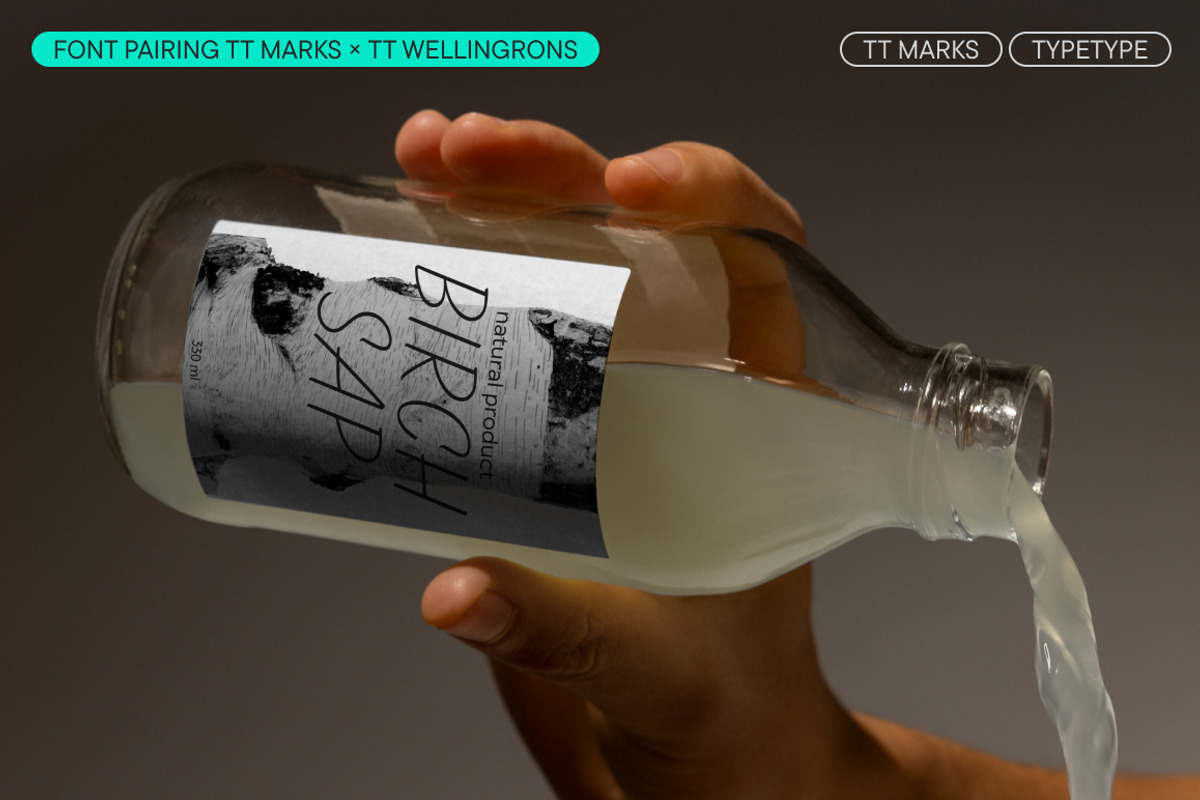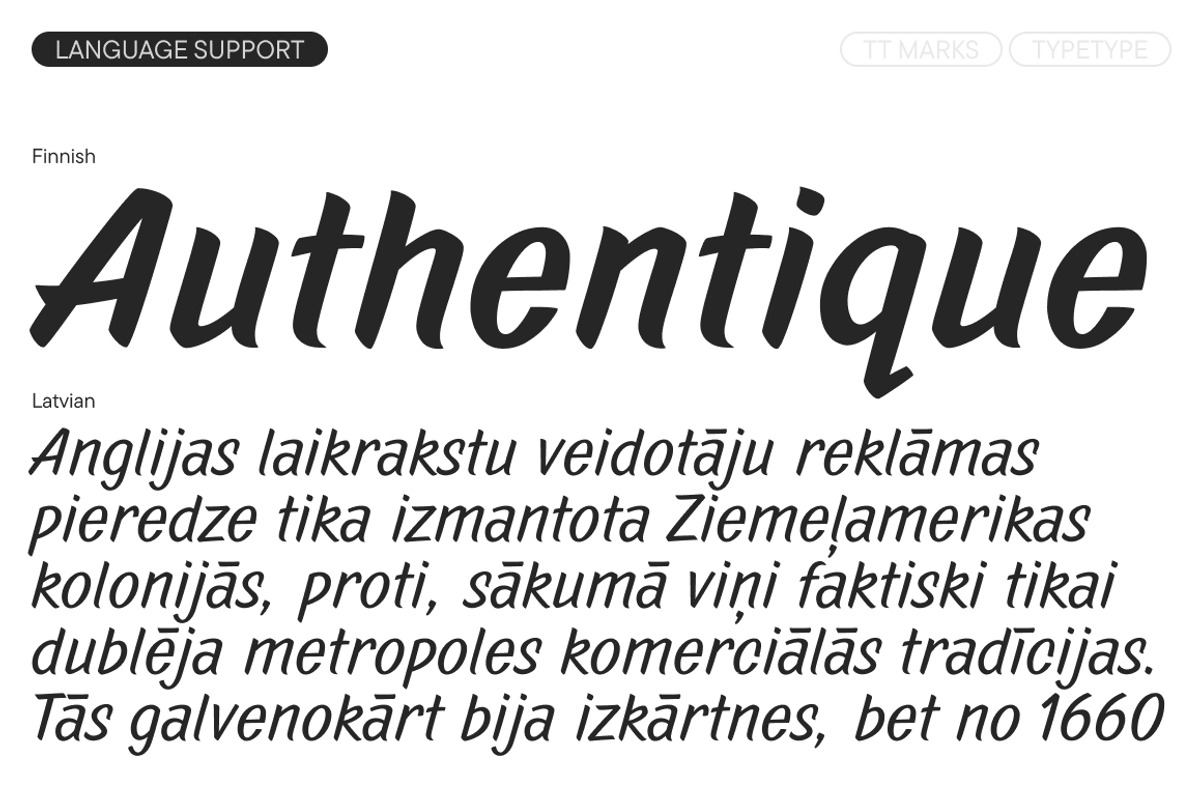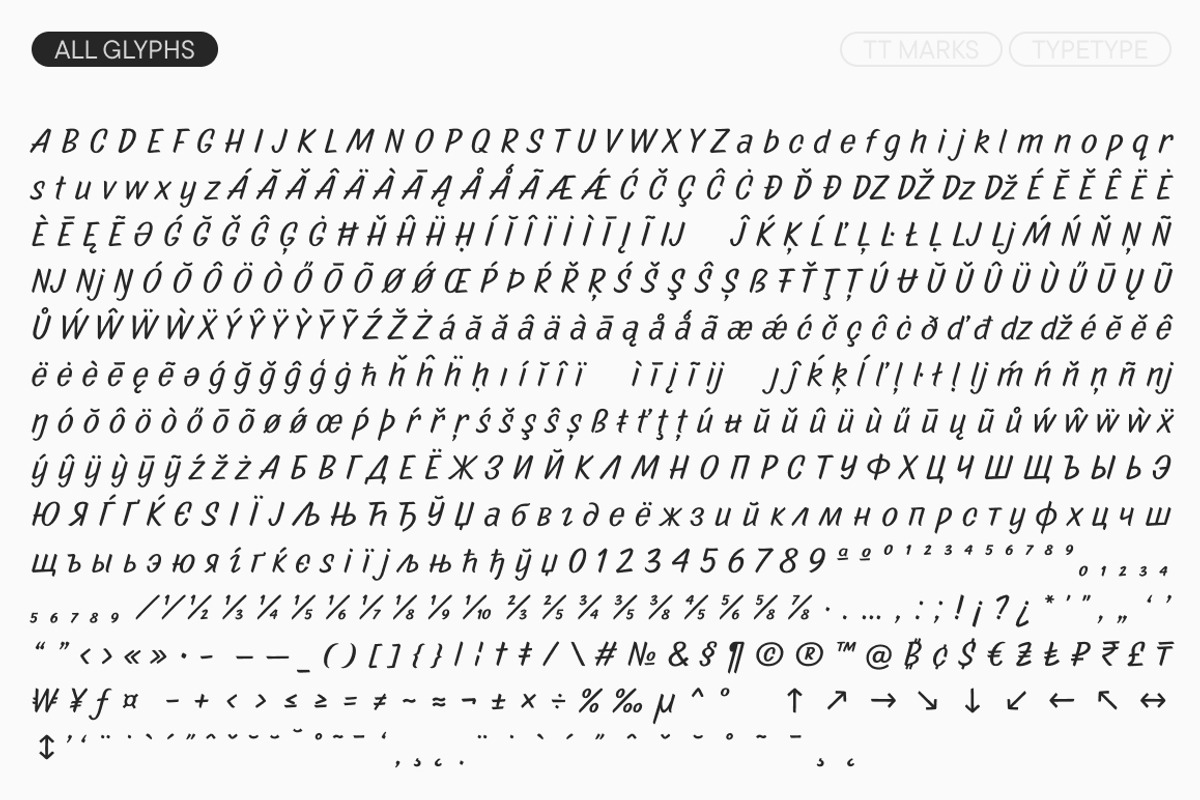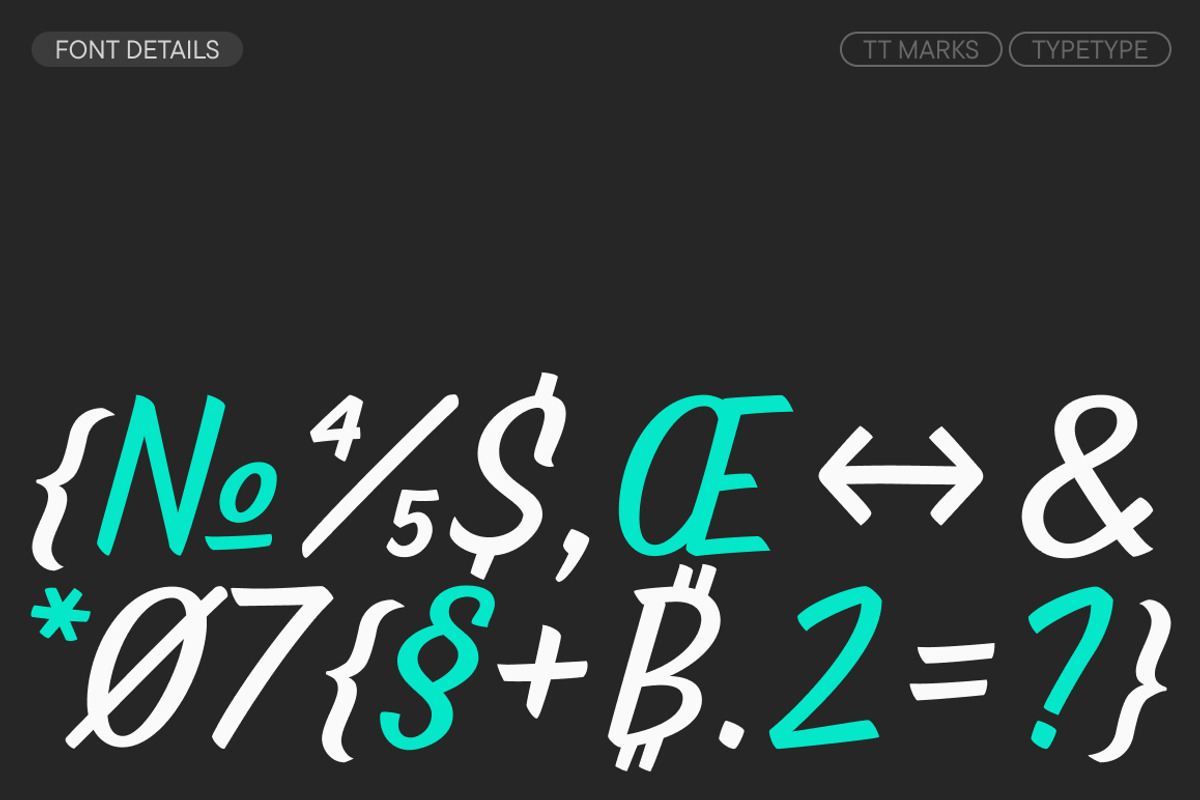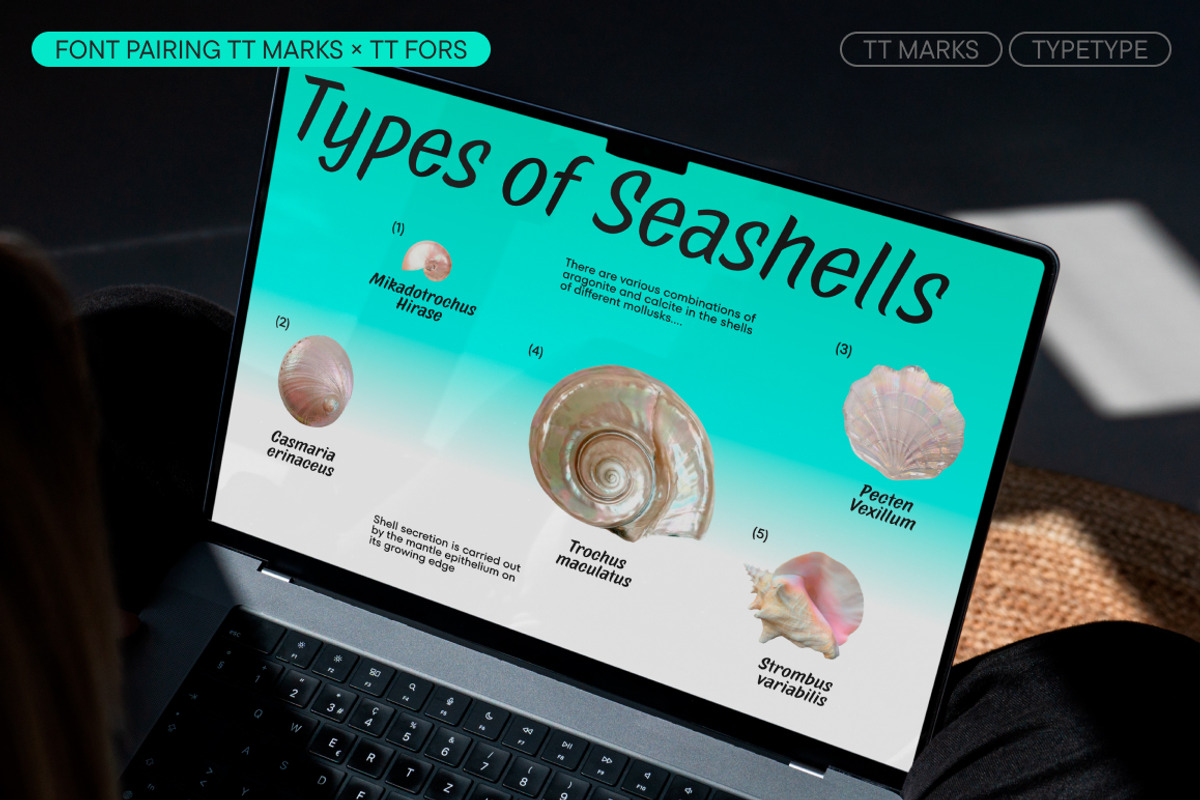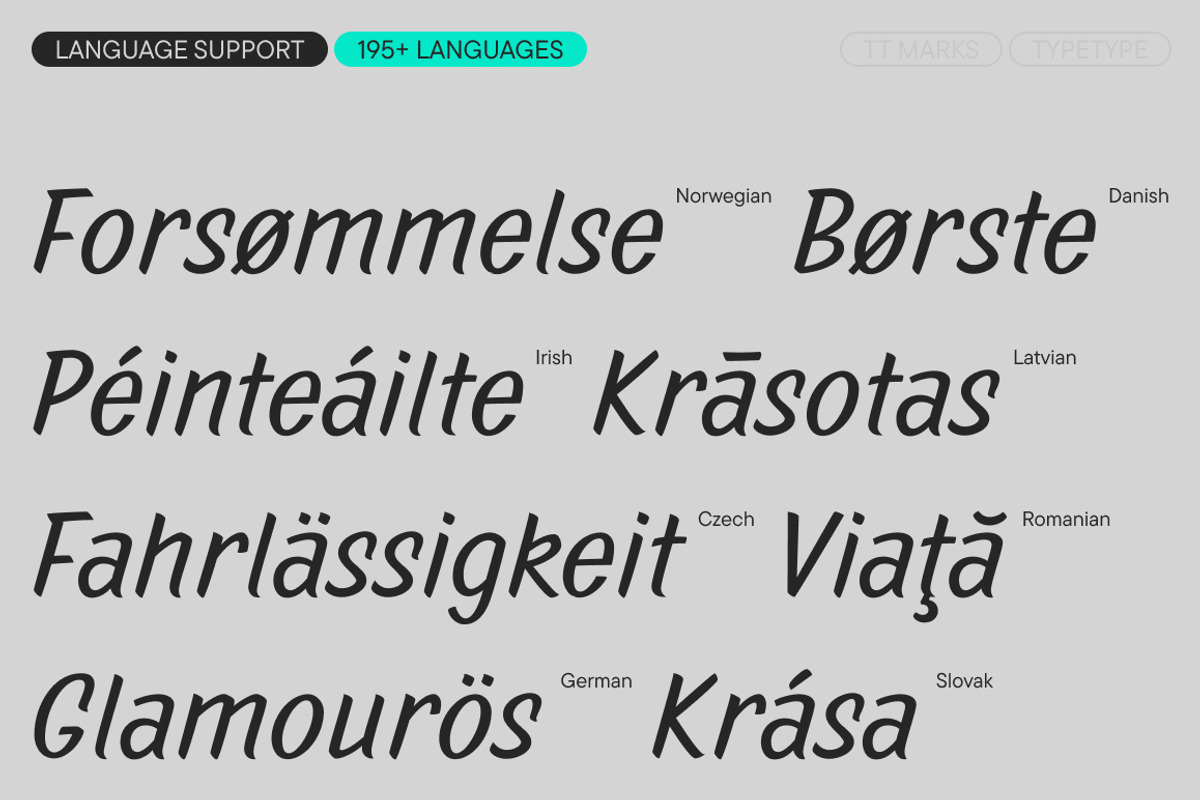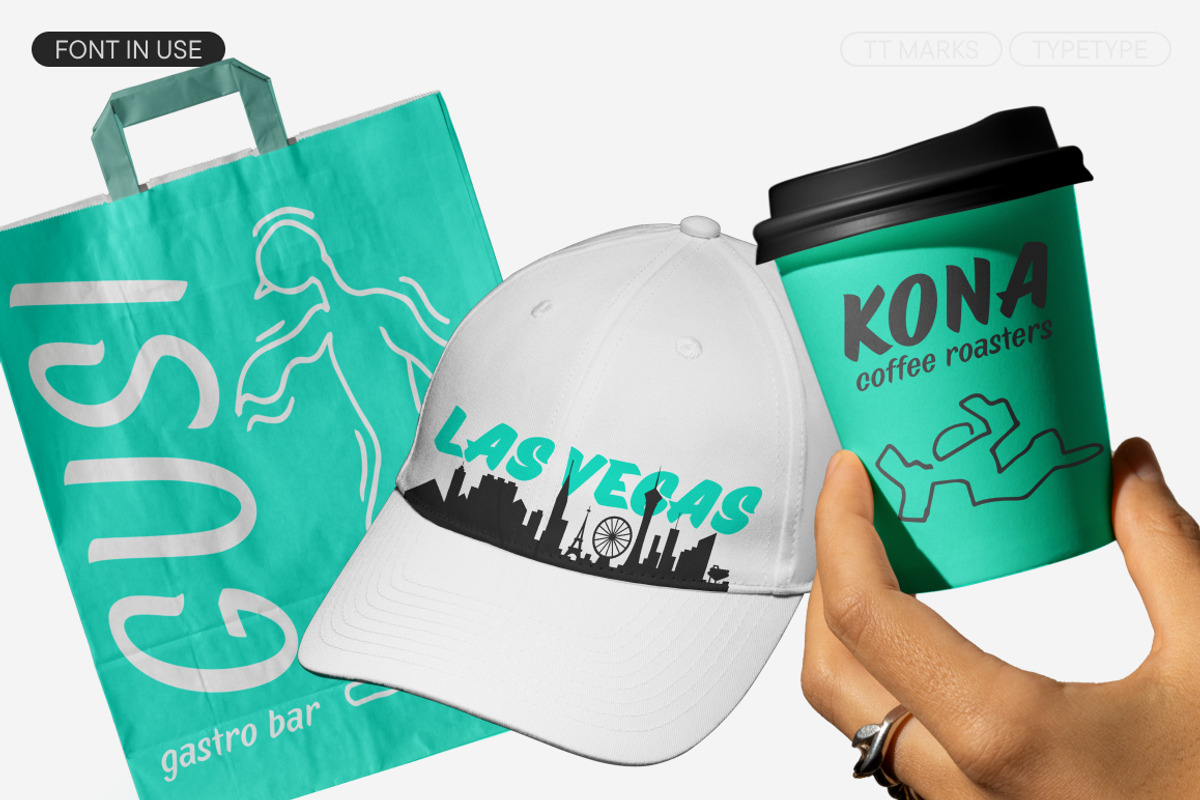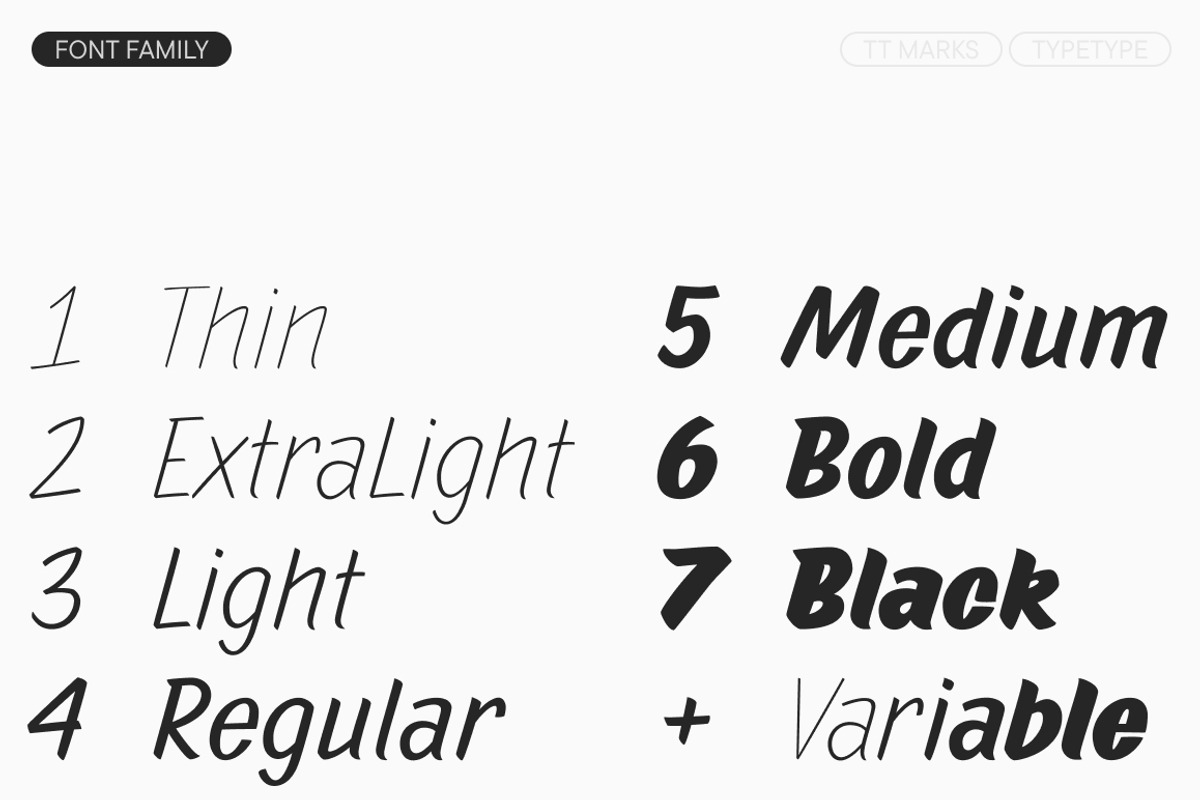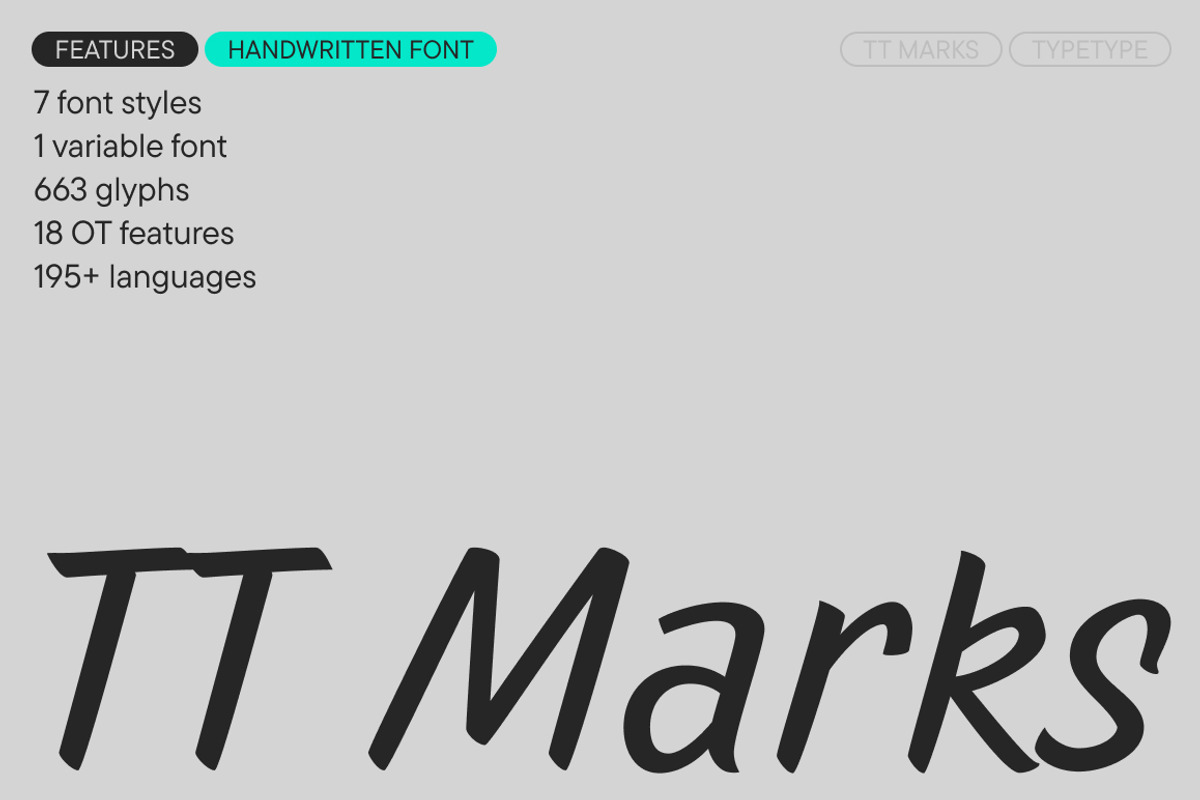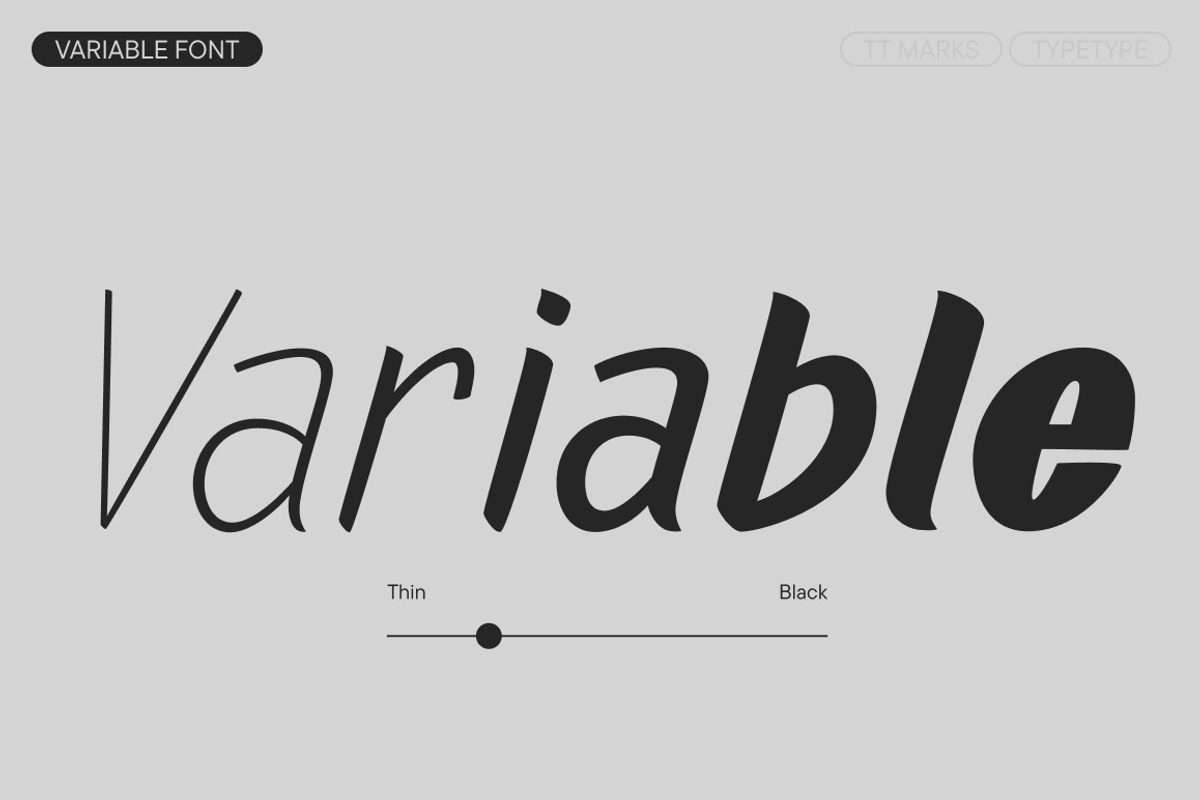
TT Marks
Introducing TT Marks—our new decorative typeface that brings the authentic charm of vintage American signage to your fingertips!
TT Marks delivers a script with dynamic rhythm, heartfelt character, and nostalgic appeal inspired by the classic art of American sign painting. This craft, where skilled artists hand-painted storefront signage with brushes and careful technique, is experiencing a well-deserved renaissance in today's design world.
Every curve in TT Marks celebrates its handcrafted origins: fluid strokes, intentional imperfections, and that unmistakable street-level charisma that makes this typeface both distinctive and immediately engaging.
This versatile typeface shines in branding and packaging projects, elevates book and magazine covers, and creates show-stopping impact at display sizes on posters and billboards. TT Marks infuses projects with vintage appeal and handcrafted warmth that feels genuinely human. When used in hospitality settings like restaurant or café branding, it effortlessly evokes the inviting atmosphere of beloved American diners.
TT Marks features:
- 8 styles: 7 upright and 1 variable font that changes along the weight axis
- 663 characters per style
- 18 OpenType features
- Support across 195 languages
TT Marks—where vintage American street culture meets modern typography!
Full list of OpenType features: aalt, ccmp, ordn, locl, case, frac, sinf, subs, sups, numr, dnom, tnum, pnum, calt, ss01 (Turkish i), ss02 (Romanian Comma Accent), ss03 (Dutch IJ), ss04 (Catalan Ldot)